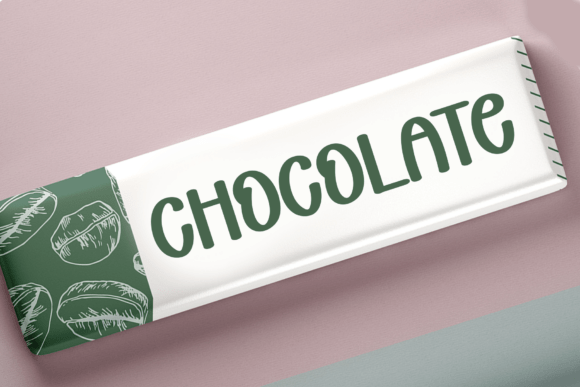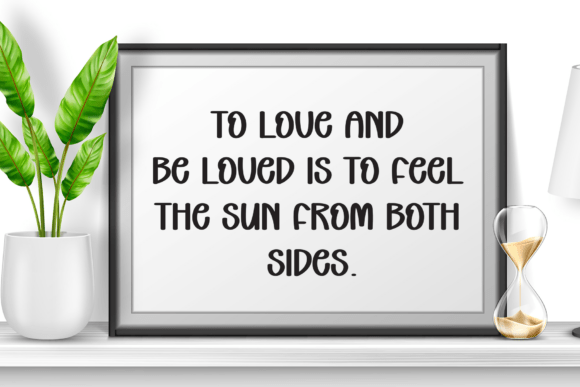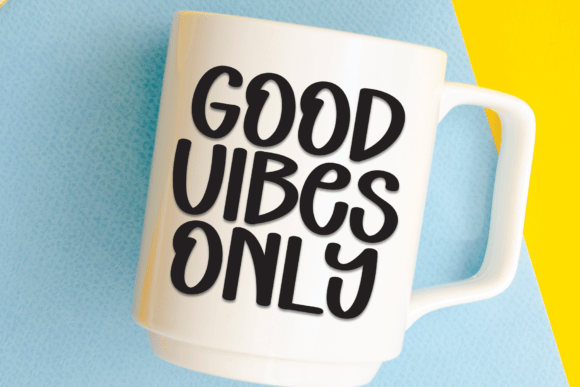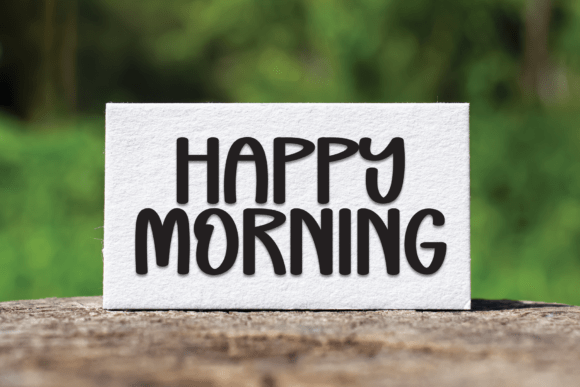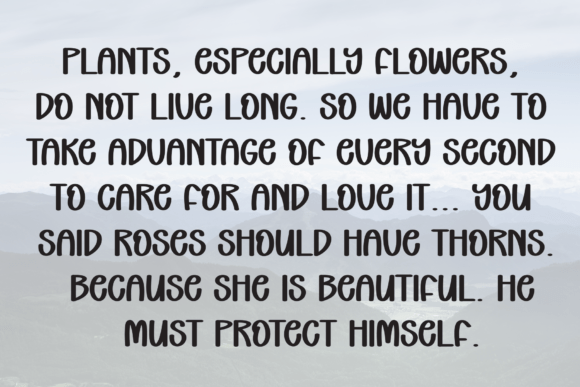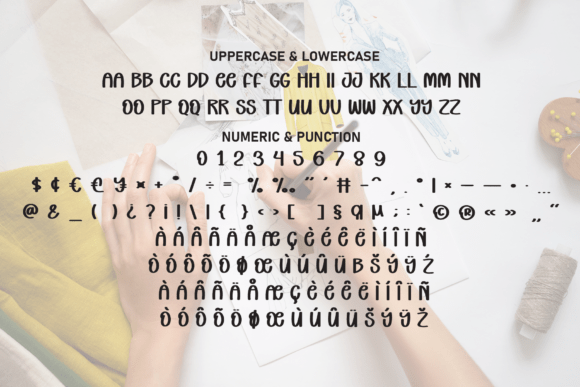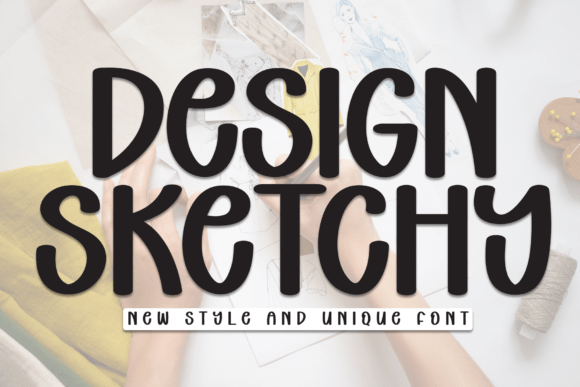
Introducing Design Sketchy Font: The Perfect Blend of Freshness and Friendliness
In the world of typography, fonts play a crucial role in conveying the tone and personality of a brand or design. For designers and crafters looking for a font that exudes a fresh, friendly vibe, Design Sketchy is an excellent choice. This casual and neat display font is designed to add charm and clarity to various projects while maintaining a polished appearance.
What Makes Design Sketchy Font Stand Out?
Design Sketchy font boasts clean lines and a relaxed structure, making it perfect for a wide range of applications, including packaging, posters, and social media graphics. The approachable design of this font adds a touch of warmth and approachability, making it ideal for brands that want to connect with their audience on a personal level.
Key Features of Design Sketchy Font
- Clean Lines: The font features clean lines that give it a crisp and modern look, making it perfect for designs that require a bit of sophistication.
- Relaxed Structure: The relaxed structure of the font gives it a casual and laid-back feel, making it ideal for designs that require a friendly and approachable tone.
- Fresh and Friendly Vibe: The font radiates a fresh and friendly vibe, making it perfect for brands that want to convey a sense of approachability and warmth.
- Polished Appearance: Despite its casual nature, Design Sketchy font maintains a polished appearance, making it suitable for a wide range of applications.
Use Cases for Design Sketchy Font
Design Sketchy font is versatile and can be used in various design projects, including:
- Packaging: The font’s clean lines and relaxed structure make it perfect for packaging designs that require a fresh and friendly vibe.
- Posters: Design Sketchy font is ideal for poster designs that require a bold and eye-catching font.
- Social Media Graphics: The font’s approachable design makes it perfect for social media graphics that require a friendly and engaging tone.
Why Designers and Crafters Love Design Sketchy Font
Designers and crafters love Design Sketchy font for its unique blend of freshness and friendliness. The font’s clean lines, relaxed structure, and polished appearance make it a versatile choice for various design projects. Additionally, the font’s approachable design adds charm and clarity to projects, making it perfect for brands that want to connect with their audience on a personal level.
Tips for Using Design Sketchy Font Effectively
To get the most out of Design Sketchy font, here are some tips for using it effectively:
- Use it as a Display Font: Design Sketchy font is perfect for use as a display font, where it can be used to grab attention and add a touch of personality to a design.
- Pair it with Other Fonts: The font can be paired with other fonts to create a unique and visually appealing design.
- Experiment with Colors: Design Sketchy font can be used with a variety of colors to create a design that is both fresh and friendly.
Design Sketchy font is a versatile and charming font that is perfect for designers and crafters looking for a fresh and friendly vibe. With its clean lines, relaxed structure, and polished appearance, it’s ideal for a wide range of applications, including packaging, posters, and social media graphics. By using Design Sketchy font effectively, designers and crafters can add charm and clarity to their projects while maintaining a polished appearance.